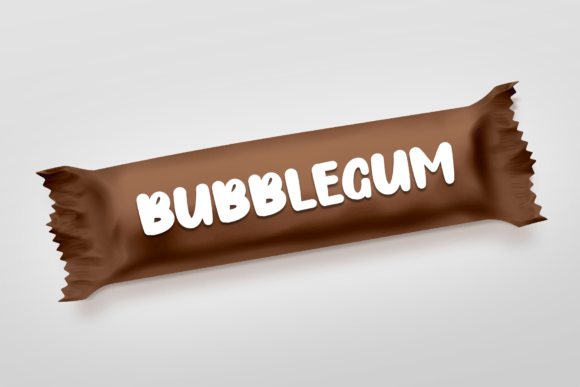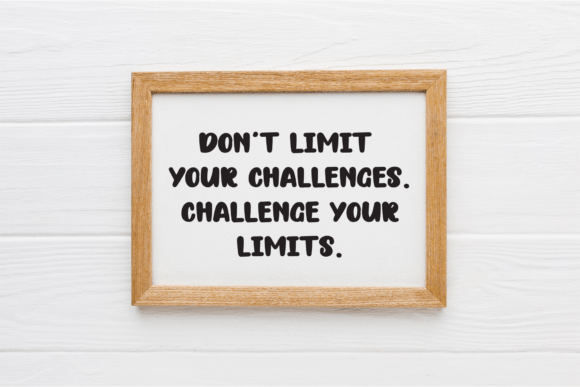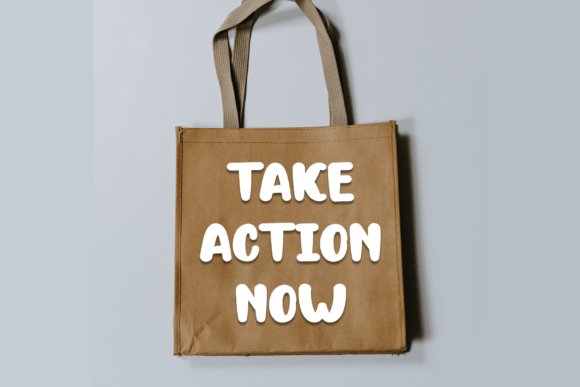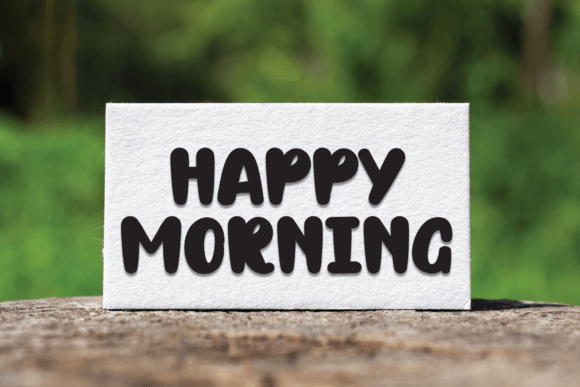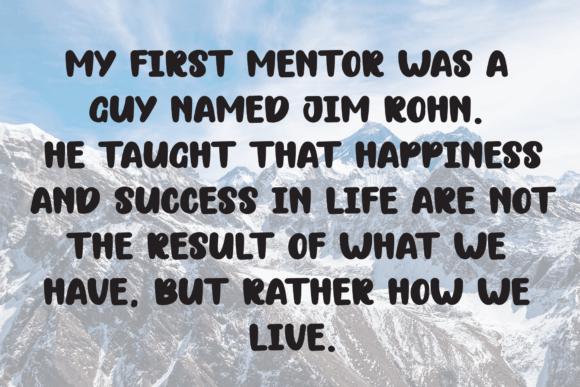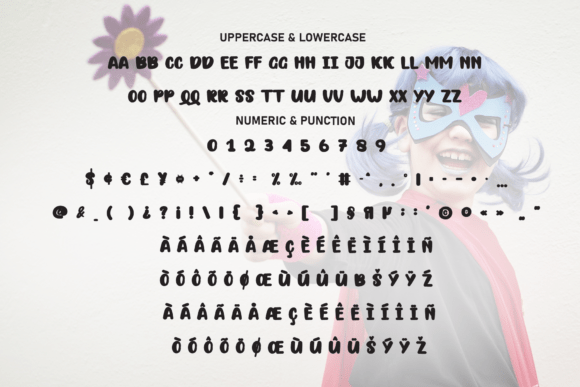
The Heroic Charm of Heroes Font: A Designer’s Delight
I still remember the time I was working on a wedding invitation project, and my client asked for a font that would add a touch of warmth and personality to the design. I scoured the internet, tried out countless fonts, but nothing seemed quite right. That was until I stumbled upon Heroes Font. Its charming and approachable handwritten display was like a breath of fresh air, and I knew I had found the perfect fit. In this article, I’ll share my experience with Heroes Font, its features, and how to make the most of it in your designs.
An Honest Review of Heroes Font
- ✨ Adorable and playful attributes that scream friendly and informal expression
- ✅ Perfect for adding warmth and joy to any written medium
- 🎉 Especially suited for wedding invitations, thoughtful cards, and design projects that require a sprinkle of entertaining panache
- 💻 Heroes Font comes with a range of OpenType features, glyphs, and stylistic alternates that allow for endless creativity
While Heroes Font is a stunning addition to any design project, there are a few things to keep in mind:
- ⚠️ Some of the more intricate details may not render well at very small font sizes
- 🤔 The font’s playful nature may not be suitable for more formal or corporate designs
The Story Behind Heroes Font
Heroes Font was designed with the intention of creating a font that would bring a smile to people’s faces. Its creator, a talented type designer, wanted to craft a font that would be perfect for special occasions, like weddings and birthday cards. With its charming and approachable handwritten display, Heroes Font is sure to become a favorite among designers and crafters alike.
Q: What is Heroes Font best suited for?
A: Heroes Font is especially suited for wedding invitations, thoughtful cards, and design projects that require a sprinkle of entertaining panache.